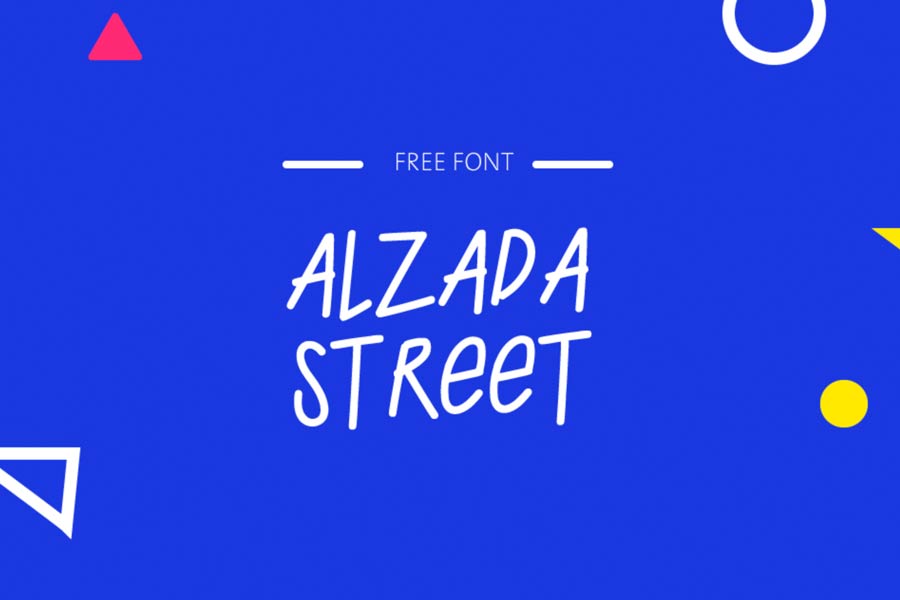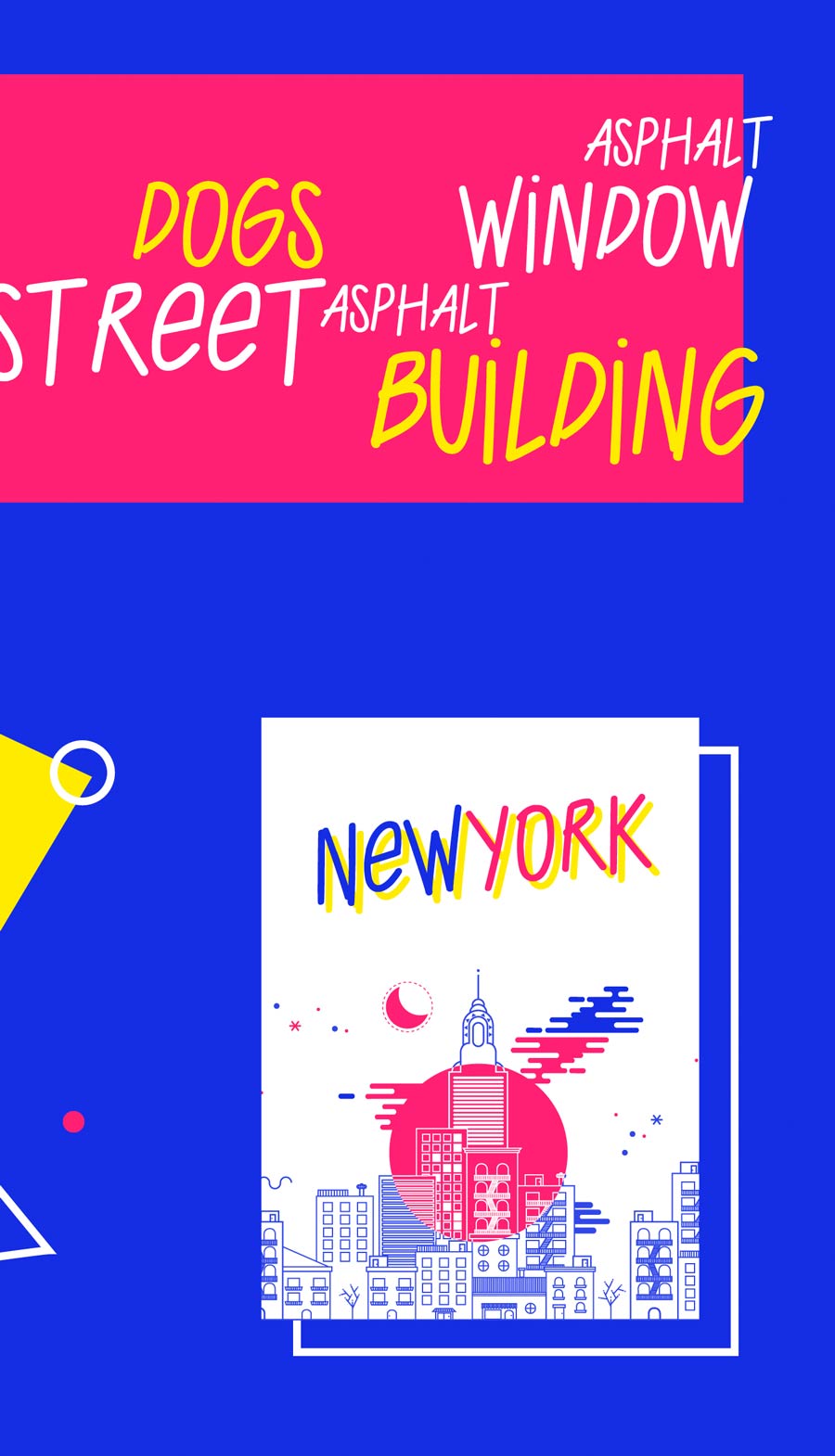
Alzada Street is a font created by drawing from the language and forms on the street. The character forms are soothing and natural to the eye and I particularly liked the inclusion of lowercase character of “i” and “e” into the uppercase to produce the more dynamic font design.
- Designer: Francisco NiƱo, Beluu Saavedra, Daniel Rivera